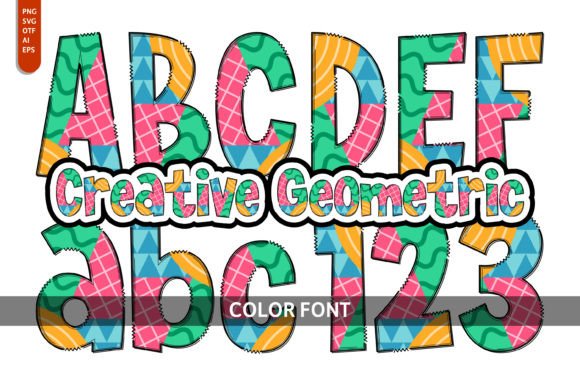
Unleash your creativity with our captivating Creative Geometric Font, a delightful blend of whimsy and color that sparks imagination. Transport your designs to a realm of playful artistry, where every letter dances with joy and vibrancy.
Picture this: a children's book adorned with the Creative Geometric Font, its characters leaping off the page with vibrant hues. The playful curves and bold shapes create an immersive reading experience, capturing young minds in a world of enchanting tales.
Or envision a poster advertising a local art festival, its title emblazoned in the Creative Geometric Font. The font's vibrant colors and playful design draw attention like a magnet, inviting passersby to immerse themselves in the world of art and creativity.
The possibilities are endless with the Creative Geometric Font. Its whimsical nature lends itself to greeting cards, invitations, and any design that calls for a touch of lightheartedness. With its easy-to-read design, the font ensures that your message shines through with clarity, leaving a lasting impression on your audience.
Step into a world of boundless creativity with the Creative Geometric Font. Let your designs bloom with color, whimsy, and endless possibilities.